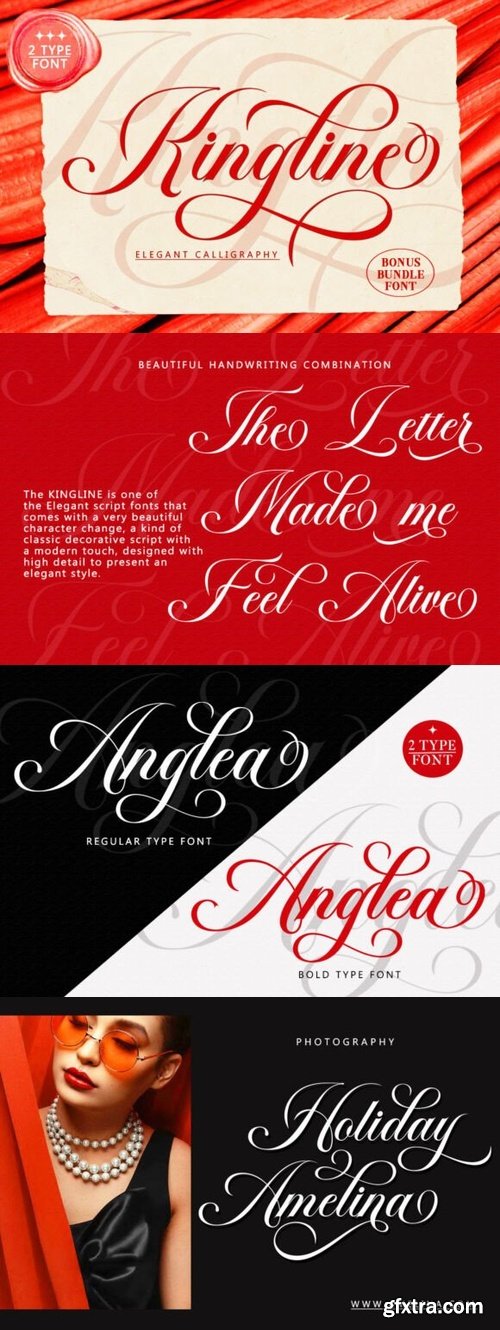
- Kingline Script Font is an elegant script font featuring a beautiful variety of characters. This font combines a Luxurious, classic style with a modern touch, designed with great attention to detail for an elegant look.
- This font is visually appealing, clean, luxurious, feminine, and easy to read, thanks to its luxurious letter connections. Its classic style is perfect for a variety of formal uses, including invitations, labels, restaurant menus, logos, fashion, makeup, stationery, novels, magazines, books, greeting and wedding cards, packaging, and all types of advertising.
- Bring raw emotion and scribbled energy into your work with Against Madness — a rebellious font that speaks louder than words. With expressive, hand-drawn strokes, this typeface channels pure feeling into every letter, perfect for contemporary and minimalist designs that demand to stand out.
- But there's more — Against Madness comes with special characters and a unique set of dingbats to amplify your creative voice. Whether you're crafting bold posters, edgy branding, or eye-catching social media graphics, this font adds a dynamic and artistic flair that breaks the mold.
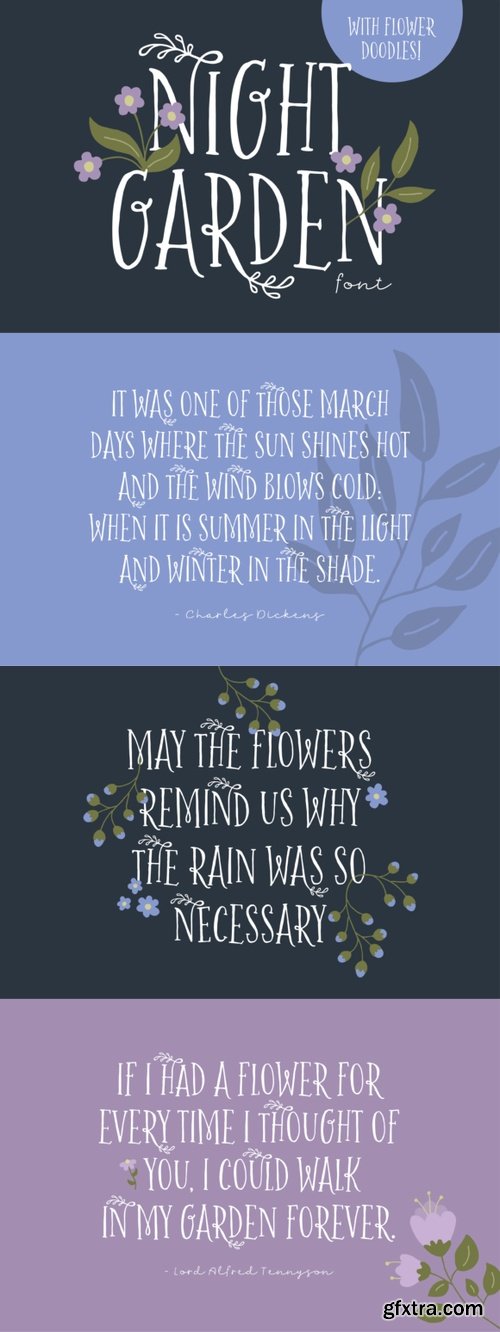
Night Garden is a whimsical, all-caps font that includes several nature-inspired ligatures and alternate characters. Ligatures will appear automatically in programs that support OpenType fonts and have the feature turned on. Also included is a bunch of cute flower doodles to brighten up your designs!
Experience the allure of Rosellia Rosely, a meticulously crafted handwritten font designed for those who appreciate elegance and sophistication in their typography. With its flowing lines and graceful curves, Rosellia Rosely embodies the essence of a refined signature, adding a touch of personal flair to every project.
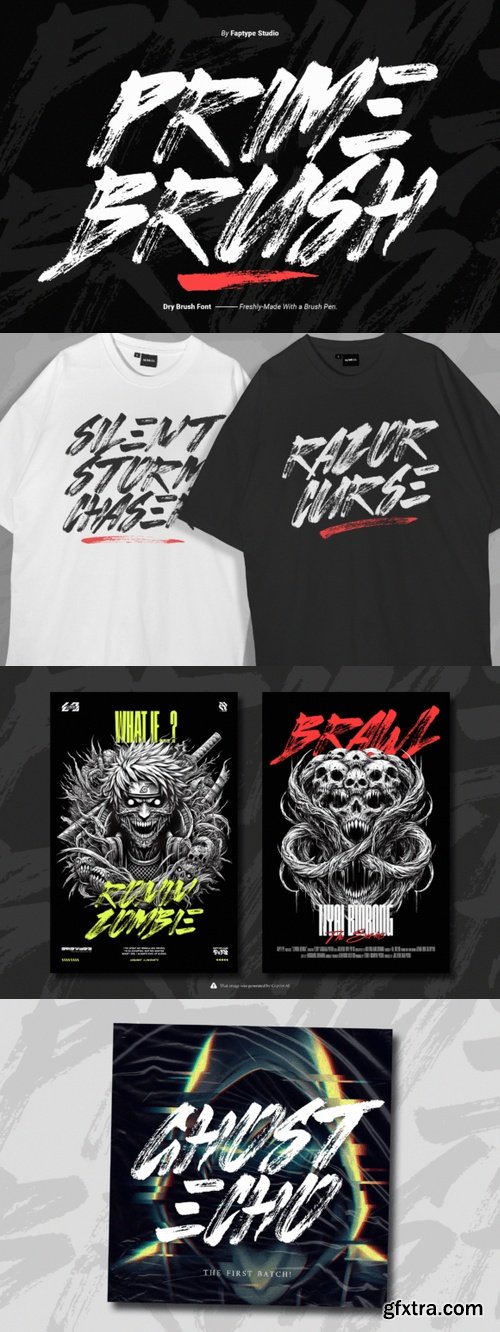
- Introducing Prime Brush, a handcrafted dry brush font that captures the raw energy of bold strokes and dynamic movement. Created manually using a real dry brush, each letter is painted with precision, scanned, and digitally refined to maintain its natural texture and organic imperfections. The result is a font that feels alive—packed with expressive details that bring authenticity to any design. Whether you're working on a bold headline, an eye-catching logo, or artistic branding, Prime Brush delivers an impactful, high-energy aesthetic.
- Designed with all-uppercase characters, this font is meant to make a statement. It includes a full set of symbols, punctuation, and swashes, giving you the creative freedom to add motion and flair to your typography. With built-in multilingual support, it seamlessly adapts to a variety of languages, making it a versatile choice for global projects. The rough, textured strokes of Prime Brush bring out an effortless balance between chaos and control—perfect for projects that demand a raw, rebellious, and energetic touch.
- From posters, apparel, and album covers to branding, packaging, and social media graphics, this font fits seamlessly into any design that craves authenticity. Whether you're crafting streetwear aesthetics, grunge-style visuals, or high-impact advertising, Prime Brush ensures your message is delivered with power and confidence. Let your creativity flow and make a bold impression with this rugged, hand-drawn masterpiece.
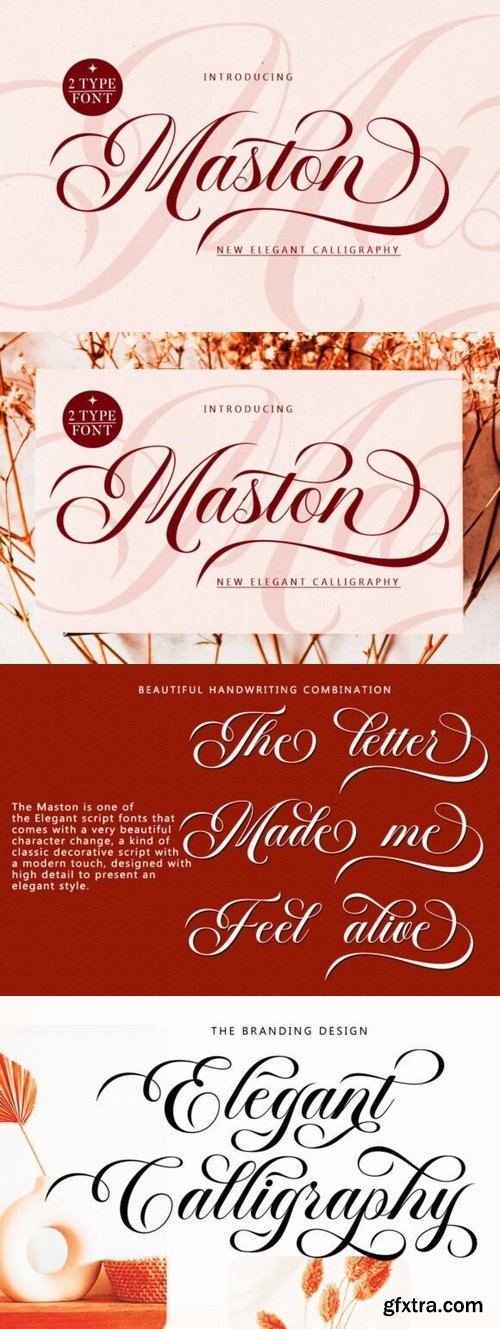
- Maston Script Font is an elegant script font featuring beautiful character variations. It combines classic copper style with a modern touch, designed with great attention to detail for an elegant look.
- This font is visually appealing, clean, feminine and easy to read, thanks to its luxurious letter connections. Its classic style is perfect for a variety of formal uses, including invitations, labels, restaurant menus, logos, fashion, makeup, stationery, novels, magazines, books, greeting and wedding cards, packaging and all types of advertising.
Unleash the spirit of athleticism with the dynamic Bottom Length Sport Font. A unique blend of classic college font aura coupled with the energy of a jersey font, this outlined alphabet marks the perfect balance between sophistication and vigor. Interpret the feel of a collegiate font with an artistic twist, designed to accentuate your creative projects. Relish in the fluid elegance of this sport alphabet, that works seamlessly in painting a picture of strength, determination and passion. Ideal for projects aimed at capturing attention and exuding a sense of spirited sportsmanship. Experience the dynamic power of the Bottom Length Sport Font.
Bright Glamore is a unique and sophisticated serif typeface, designed to bring a sense of luxury, modernity, and timeless elegance. With its thin serifs, smooth curves, and distinctive details, this font is perfect for fashion branding, editorials, premium packaging, and exclusive typography designs.
“Battle Hunter” is an elegant and professional blackletter font. It comes with capital letters, lowercase letters, numbers, punctuation, and multilingual support. It is perfect for use in movie titles, business branding, stickers, logos, prints, book titles, magazines, comics, Easter, summer, spring, and more.
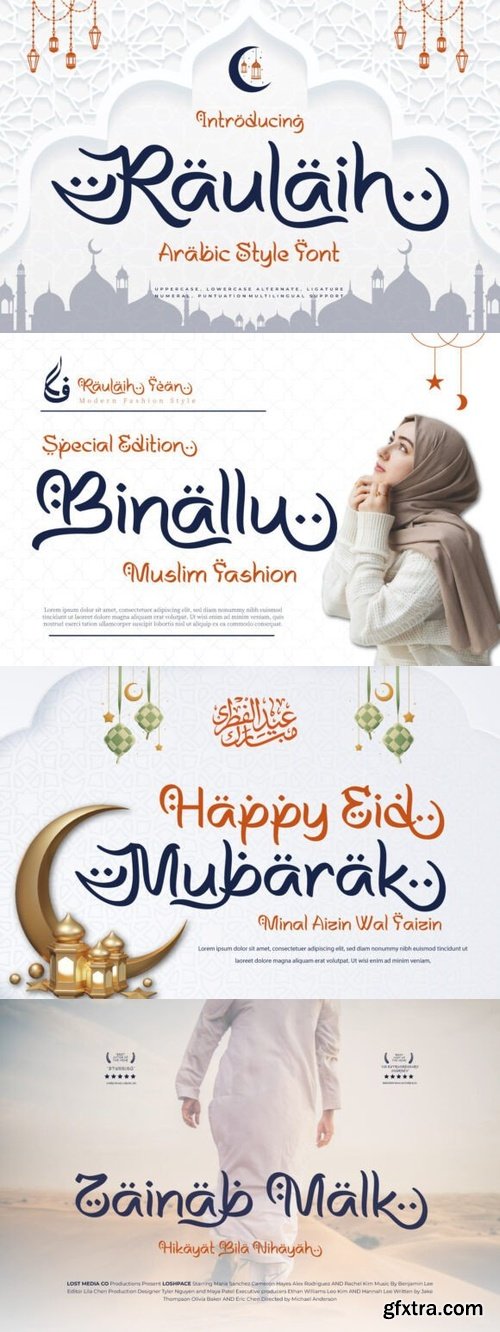
- Raulaih – Arabic Style Font is a typeface inspired by traditional Arabic calligraphy, featuring graceful curves and simple lines. Raulaih is ideal for projects that want an elegant cultural touch, such as branding, event invitations, posters, and editorial layouts. This font evokes the timeless beauty of Arabic script, adding depth and a sense of heritage to your designs.
- Bring a unique Middle Eastern aesthetic to your creations with Raulaih and enhance it with its cultural elegance.